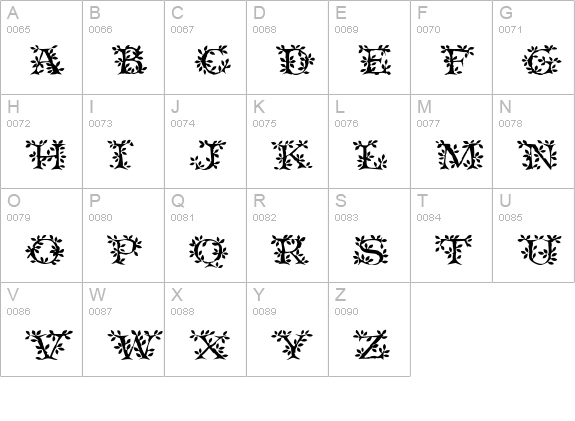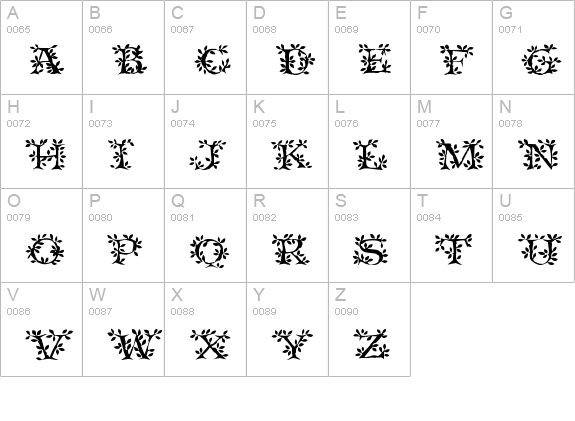
IvyDisplayCaps Font Details
IvyDisplayCaps font is a stunning display typeface that captivates with its elegant and sophisticated appearance. Designed with meticulous detail, this font boasts graceful curves and sharp edges, making it perfect for adding a touch of class to any project. With its versatile nature, IvyDisplayCaps is suitable for various design applications, including logos, headlines, titles, and more. This font exudes a sense of refinement and professionalism, making it ideal for both digital and print media. One of the standout features of IvyDisplayCaps font is that it is available for free download at FontsMarket.com. This means that designers and enthusiasts alike can easily access and utilize this beautiful font without any cost. Whether you're a professional designer or simply someone looking to elevate their creative projects, IvyDisplayCaps font offers a high-quality solution that won't break the bank. So, why not enhance your designs with the timeless beauty of IvyDisplayCaps font? Download it for free at FontsMarket.com and let your creativity shine with this exquisite typeface.